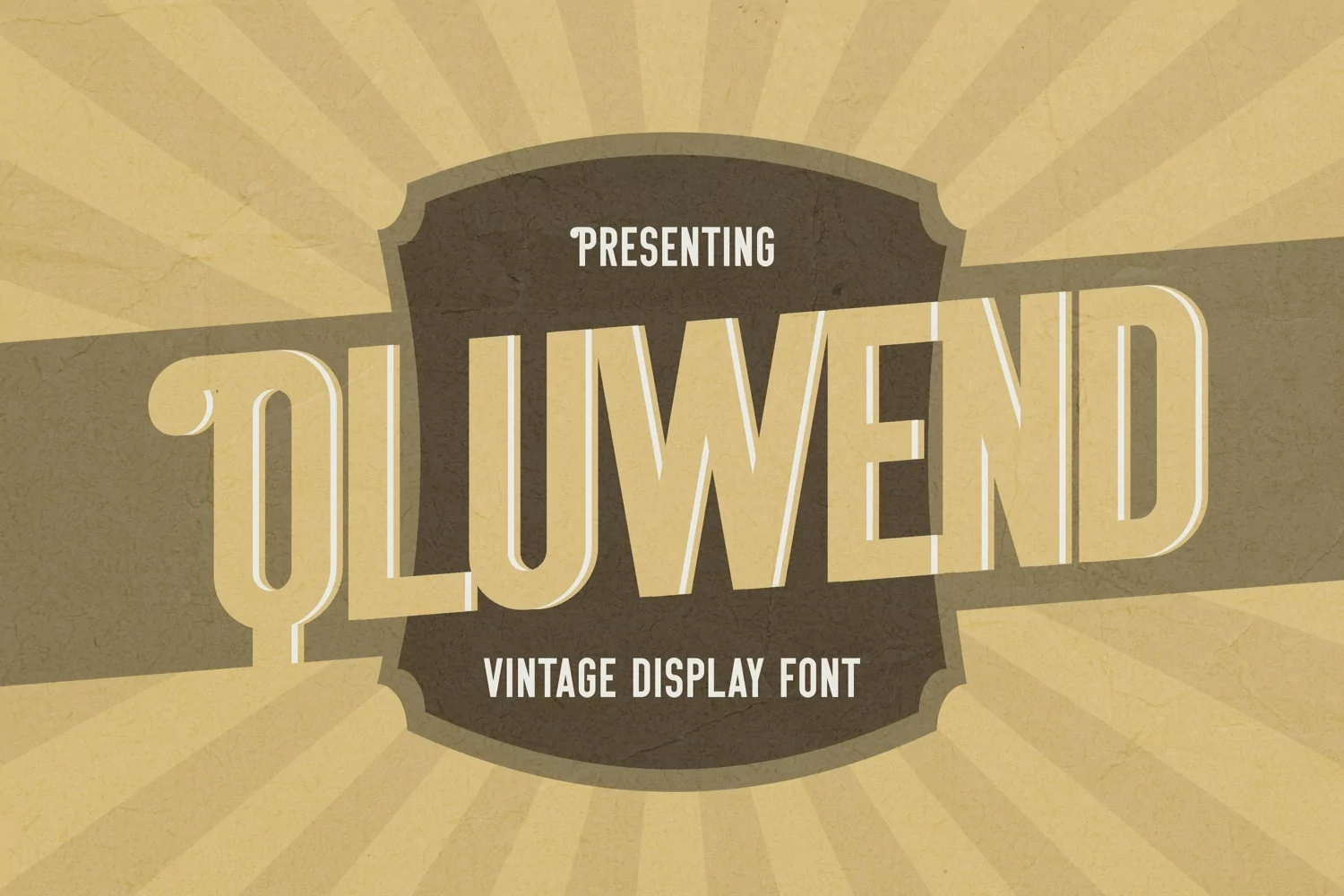
Web Font suitable for logotype, brand, packaging, quotes, music poster, t-shirt, cover book and more custom design. The features uppercase, lowercase, numeral, punctuation & symbol, multilingual support.
QluwendRegular